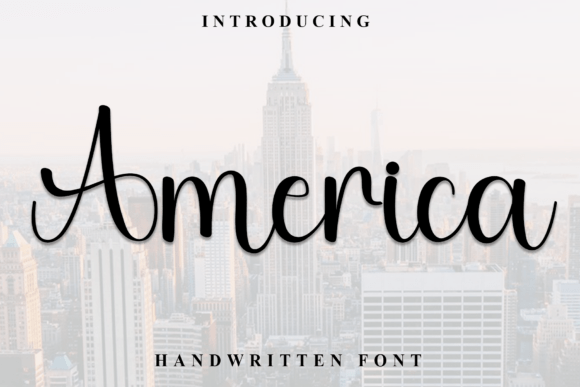
The America Font: A Casual and Creative Companion for Your Design Projects
I’ll never forget the time I was working on a social media campaign for a small business, and I just couldn’t find the right font to capture their friendly and approachable vibe. That’s when I stumbled upon the America Font, and it instantly became my go-to choice. Its round, playful strokes and charming, hand-drawn aesthetic added a fun and unique touch to my designs, making them perfect for personal projects, invitations, and social media graphics.
An Honest Review of America Font
- ✅ The font’s casual and creative feel makes it perfect for a wide range of design projects, from personal invitations to social media graphics.
- ✅ The round, playful strokes create a relaxed and approachable feel that’s hard to achieve with more formal fonts.
While the America Font is an excellent choice for many design projects, there are a few things to keep in mind:
- 🤔 The font’s hand-drawn aesthetic may not be suitable for more formal or corporate designs.
- ⚠️ Some users may find the font’s playful strokes a bit too casual for certain projects.
The Story Behind America Font
The America Font was designed with the intention of creating a friendly and approachable typeface that would add a personal touch to any design project. The font’s creator aimed to capture the warmth and playfulness of hand-drawn lettering, making it perfect for personal projects, invitations, and social media graphics.
Q: What is the America Font?
A: The America Font is a casual and creative font that exudes warmth and friendliness, making it perfect for personal projects, invitations, and social media graphics.